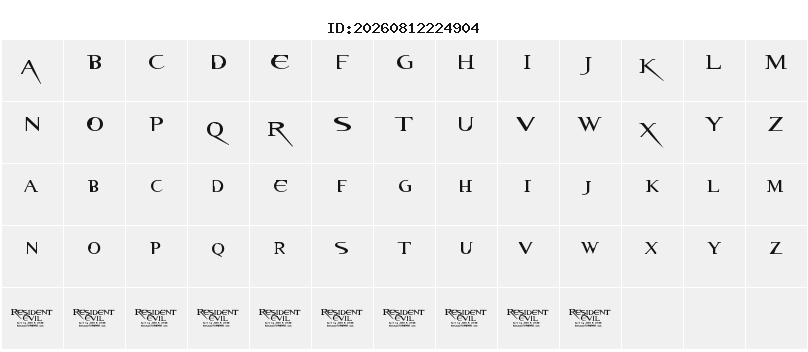
Resident Evil Preview
• Font Name: Resident Evil
• Full Font Name: Resident Evil
About Resident Evil.ttf
Resident Evil.ttf is a modern, elegant sans-serif font designed for ultimate readability and visual harmony. Perfect for branding, headlines, web design, and print materials.